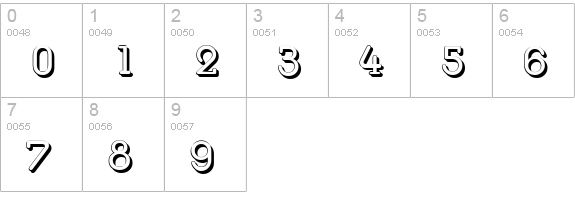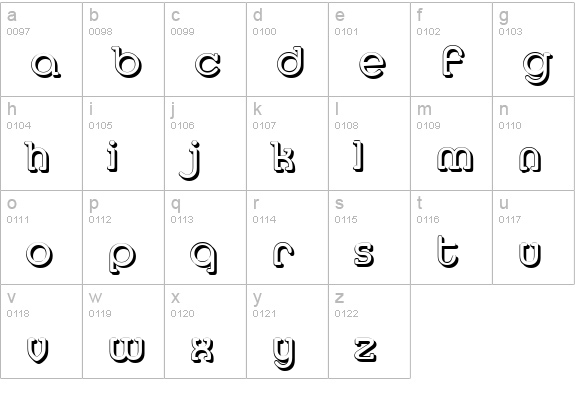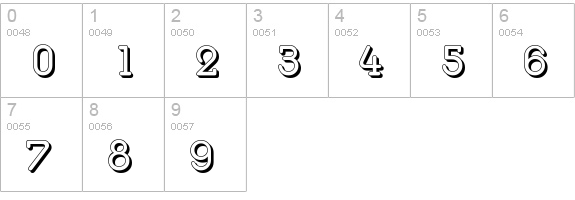
MexicoShadow-Regular Font Details
MexicoShadow-Regular is the standard, neutral variant in the MexicoShadow typeface family \xE2\x80\x94 well suited to general body text, paragraphs, and standard typographic work.
MexicoShadow-Regular font is a bold and dynamic typeface that exudes a sense of power and strength. With its sharp edges and intricate details, this font is perfect for adding a touch of elegance and sophistication to your designs. Whether you're working on a logo, poster, or website, MexicoShadow-Regular font is sure to make a statement. The best part is that MexicoShadow-Regular font is completely free to download at FontsMarket.com. You can easily access this stunning font and use it for both personal and commercial projects without any restrictions. Don't miss out on the opportunity to enhance your designs with the striking MexicoShadow-Regular font today!